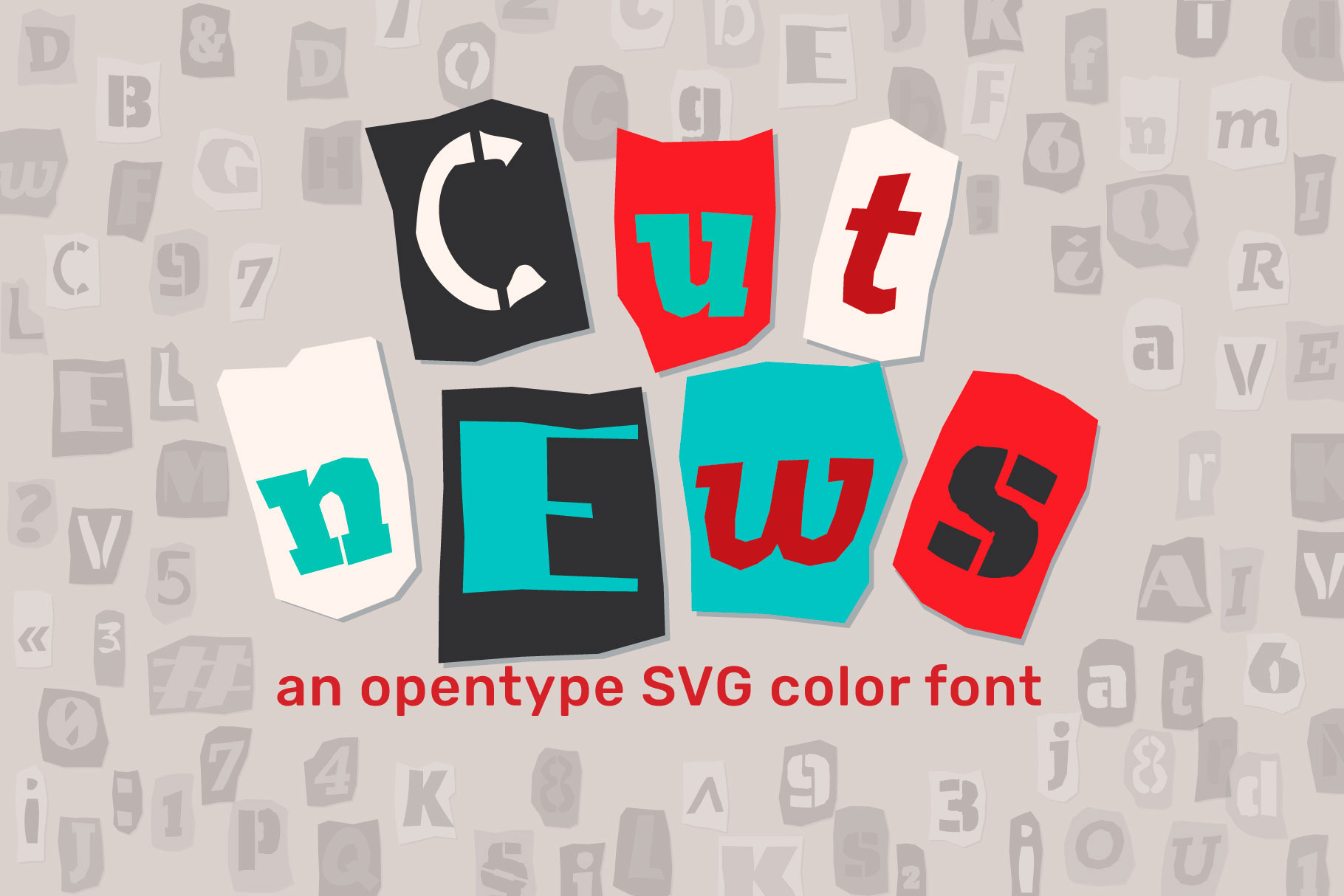
Cut News color font
CUT NEWS COLOR opentype SVG color font.
Modern display grotesque sans-serif font. Alphabet in cut out magazine letter collage style. You can use this font for your design, quotes prints on t-shirts, modern typography posters, children posters and lovely cards and… other. You will receive this ransom font in 5 formats: otf, ttf, woff2, woff, svg Try the new font :)
OpenType Font was designed with Fontself Maker in Illustrator CC. Contains CAPITALS & STRINGS letters, NUMERALS & DIGITS, PUNCTUATION, MULTILINGUAL, STANDART AND DISCRETIONARY LIGATURES. WARNING!!! Color fonts are new technology - they currently show up in ILLUSTRATOR CC 2018 OR PHOTOSHOP CC 2017 and some apps. In earlier versions of Photoshop and Illustrator, as well as office applications, the font will be displayed in black and white and you can type black color text, like most other fonts on your system. Learn more about color fonts & their support in third-party apps on www.colorfonts.wtf «Fontself Maker» team keep updating a list of apps and browsers that support color fonts (https://www.colorfonts.wtf/#section4) I hope you will like CUT NEWS COLOR OTF font and you use them to create their own projects and it will give you a lot of pleasure.